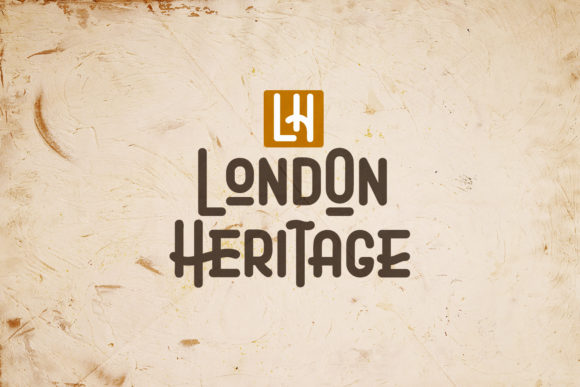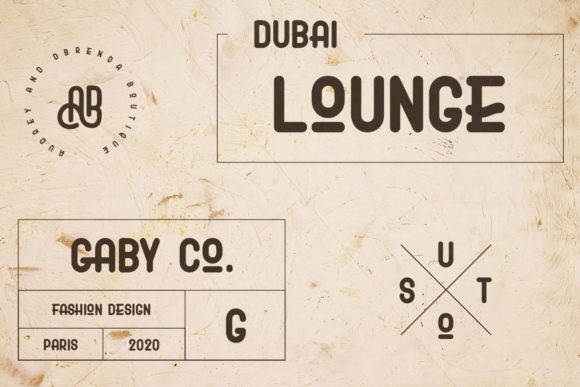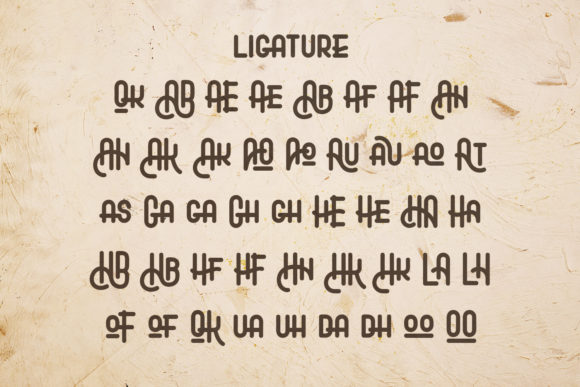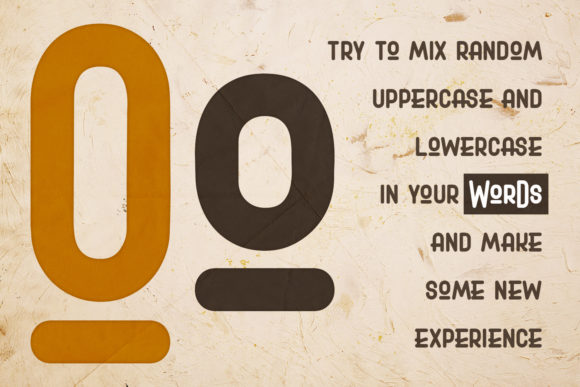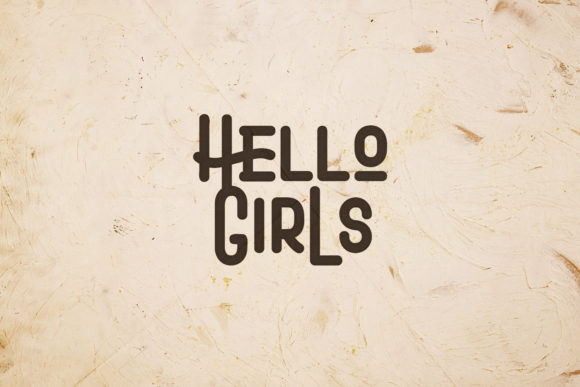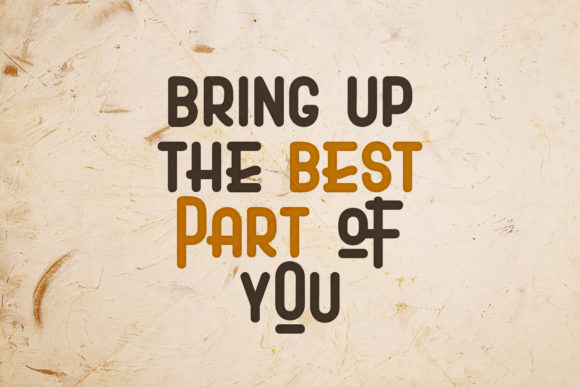
Introducing Claudio Font: The Ultimate Display Font for Joyful Designs
Are you tired of using the same old fonts for your designs? Do you want to add a touch of playfulness and joy to your creative projects? Look no further than Claudio Font! This adorable display font is designed to bring a smile to your face and a spring to your step. In this article, we’ll dive into the world of Claudio Font and explore how it can elevate your designs to the next level.
The Story Behind Claudio Font
Claudio Font is a carefully crafted display font that exudes a sense of fun and playfulness. Its unique design is inspired by the beauty of handwritten typography, with each letter meticulously drawn to create a cohesive and visually appealing look. The font’s creator aimed to design a typeface that would add a dash of personality to any design project, and we’re thrilled to say that they’ve succeeded!
What Makes Claudio Font So Special?
So, what sets Claudio Font apart from other display fonts on the market? Here are just a few reasons why this font is a game-changer:
- Unique Character Set: Claudio Font boasts a comprehensive character set, including uppercase and lowercase letters, numbers, and punctuation marks. This ensures that you have everything you need to create stunning designs.
- Playful Aesthetic: The font’s playful aesthetic is perfect for designs that require a touch of whimsy. Whether you’re working on a children’s book, a greeting card, or a social media graphic, Claudio Font is sure to bring a smile to your audience’s faces.
How to Use Claudio Font in Your Designs
Now that we’ve covered the basics of Claudio Font, let’s dive into some practical tips on how to use it in your designs:
- Pair it with Other Fonts: Claudio Font pairs beautifully with other fonts, creating a stunning visual contrast that adds depth and interest to your designs. Try pairing it with a clean sans-serif font for a bold look or a elegant serif font for a more sophisticated feel.
- Experiment with Colors: Claudio Font looks amazing in a variety of colors, from bright and bold to soft and pastel. Don’t be afraid to experiment with different color combinations to find the perfect look for your design.
- Add Texture and Patterns: Add some extra texture and interest to your designs by incorporating patterns and textures. Claudio Font looks amazing with subtle gradients, textures, and backgrounds.
Claudio Font is a versatile display font that’s perfect for a wide range of design projects, including:
- Graphic Design: Use Claudio Font to create stunning graphics for social media, websites, and marketing materials.
- Crafting: Add a personal touch to your crafting projects, such as handmade cards, gift tags, and scrapbooking pages.
- Branding: Use Claudio Font to create a unique and memorable brand identity for your business or personal project.
In conclusion, Claudio Font is a delightful display font that’s sure to bring joy and playfulness to your designs. With its unique character set, playful aesthetic, and ease of use, it’s the perfect addition to any design project. Whether you’re a seasoned designer or a crafty DIY enthusiast, Claudio Font is a must-have font that will take your creations to the next level. So why wait? Download Claudio Font today and start adding a touch of joy to your designs!
Claudio is a cute and playful display font. It will add an incredibly joyful vibe to your designs. Add it to your creative ideas and notice how it makes them come alive!